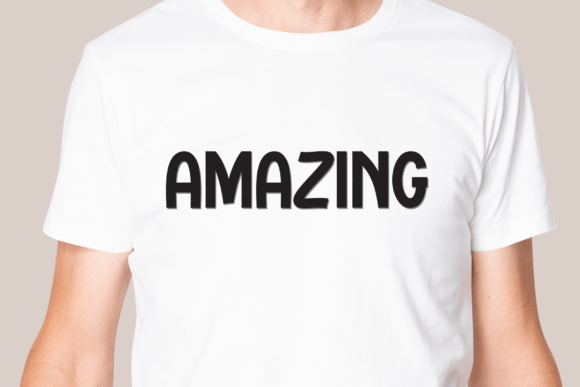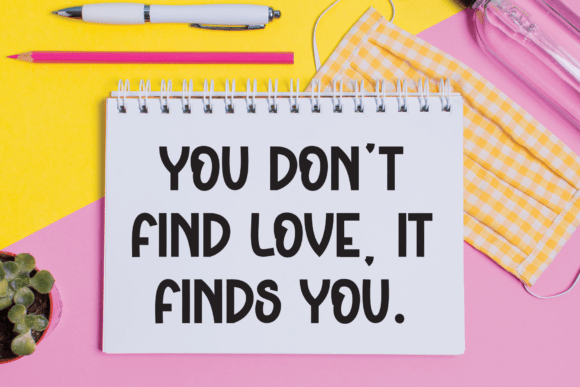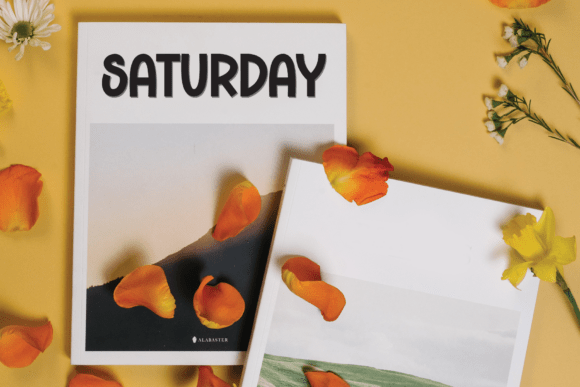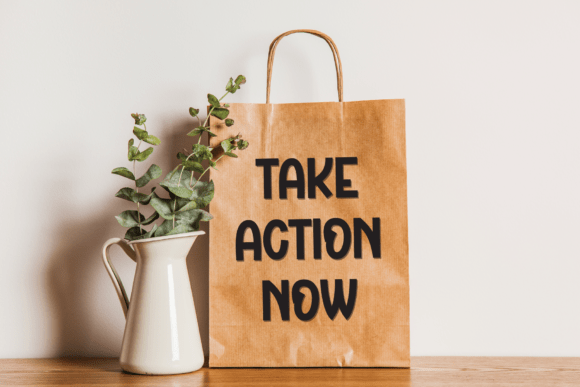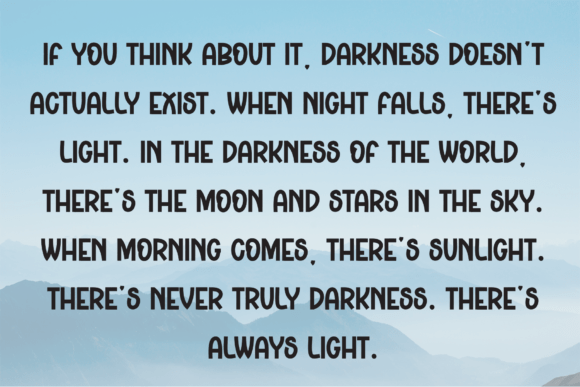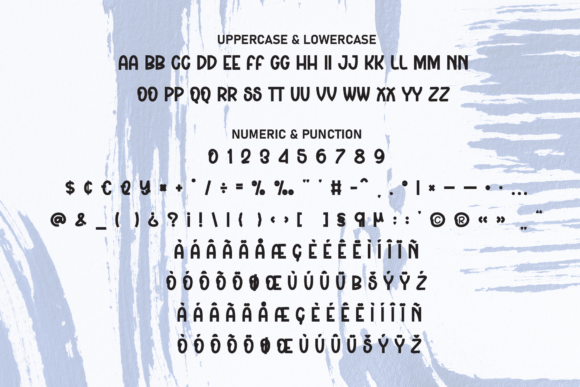
Introducing Brush Modern Font: The Perfect Addition to Your Creative Arsenal
Are you on the hunt for a font that injects a dose of playfulness and whimsy into your designs? Look no further than Brush Modern Font! This charmingly sweet, friendly handwritten display font is the ideal choice for designers and crafters seeking to add a touch of personality to their creative works. With its delightful appeal, Brush Modern Font breathes life into wedding invitations, greeting cards, and other designs that call for a touch of whimsical fun.
The Characteristics of Brush Modern Font
Brush Modern Font boasts a unique blend of modern flair and traditional charm. Its handwritten aesthetic is reminiscent of a gentle brush stroke, imbuing your designs with a sense of softness and approachability. The font’s sweet and friendly demeanor makes it perfect for a wide range of applications, from romantic wedding invitations to playful children’s party decorations.
Why Choose Brush Modern Font?
So, what sets Brush Modern Font apart from other fonts on the market? Here are just a few reasons why designers and crafters are falling in love with this delightful font:
- Playful Aesthetic: Brush Modern Font is the perfect choice for those seeking to add a touch of whimsy to their designs. Its playful aesthetic is sure to capture the attention of your audience and leave a lasting impression.
- Versatility: This font is incredibly versatile, making it suitable for a wide range of applications, from digital designs to print materials.
- Unique Personality: Brush Modern Font has a unique personality that shines through in every design. Its charmingly sweet and friendly aesthetic is sure to set your work apart from the crowd.
Brush Modern Font is perfect for a wide range of applications, including:
- Wedding Invitations: Add a touch of romance and whimsy to your wedding invitations with Brush Modern Font.
- Greeting Cards: Create personalized greeting cards that are sure to delight your friends and family.
- Children’s Party Decorations: Add a playful touch to your children’s party decorations with Brush Modern Font.
- Digital Designs: Use Brush Modern Font to create eye-catching digital designs, from social media graphics to blog headers.
Tips for Using Brush Modern Font
Here are a few tips for getting the most out of Brush Modern Font:
- Experiment with Colors: Brush Modern Font looks great in a variety of colors, so don’t be afraid to experiment and find the perfect hue for your design.
- Pair with Other Fonts: Brush Modern Font pairs perfectly with other fonts, so try combining it with a bold font for added contrast.
- Use it Sparingly: While Brush Modern Font is incredibly versatile, it’s best used sparingly. Try using it as a headline font or accent font to add a touch of personality to your design.